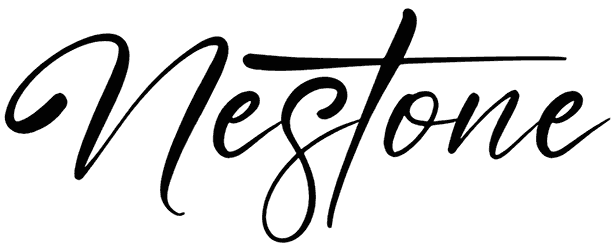
Nestone Font
By downloading Nestone, you first borrow a color of natural and old typography and then let this feeling flow into your projects with hand-designed characters.
This invitation font is what you need to take your projects away from digital and machine mode. So as long as you have this tool in hand, you can create a friendly feeling from the very beginning. This font has two styles that are very suitable for greeting cards, official letters, and friendly writing.